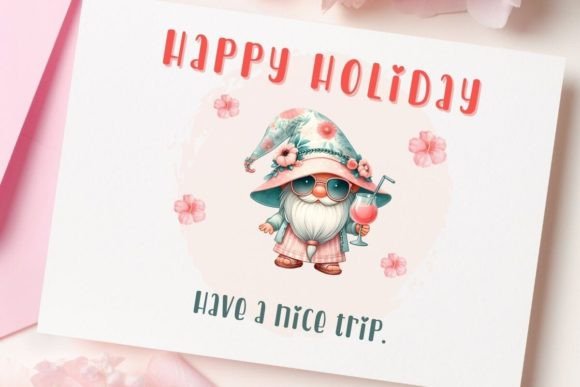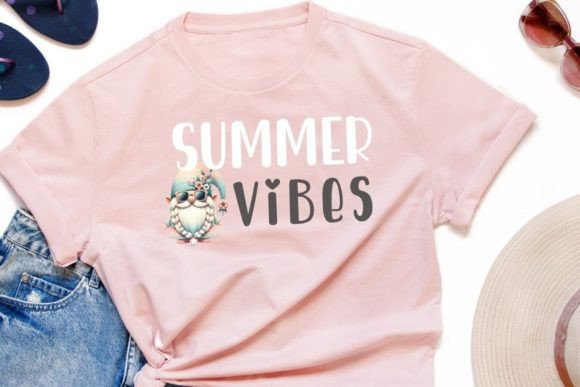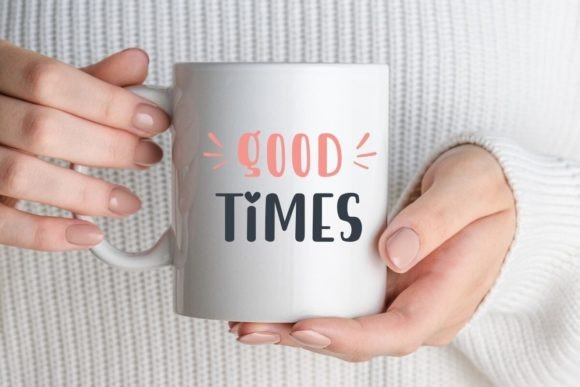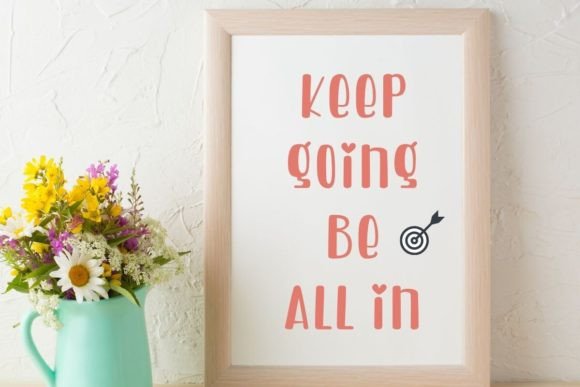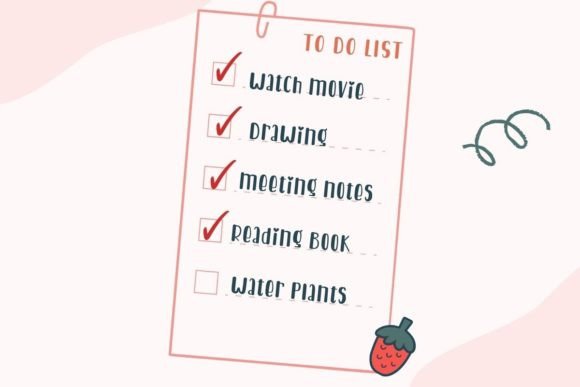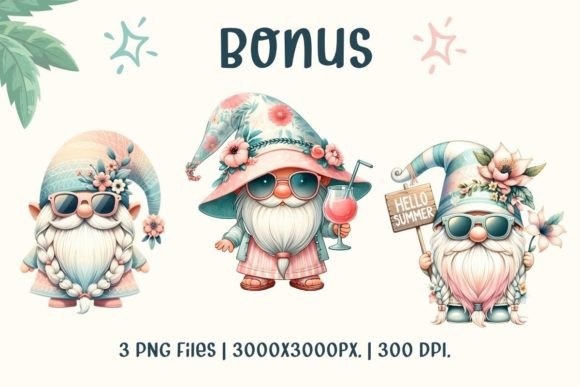
The Delightful Gnome Summer Font: A Designer’s New Best Friend
I’ll never forget the summer I spent working on a whimsical greeting card project for a client. I was determined to create something special, but I was struggling to find the perfect font. That’s when I stumbled upon the Gnome Summer font, and it instantly became my go-to for the project. With its delightful handwritten style and multilingual support, it was exactly what I needed to bring my design to life.
- ✅ Multilingual support for English, Spanish, French, German, Portuguese, and Italian, making it perfect for global design projects
- ✅ A beautiful, handwritten style that’s perfect for creating a personal touch in designs
- ✅ Versatile and suitable for a wide range of projects, from note-taking and diary writing to creating greeting cards, tote bags, mugs, and more
- ✅ Easy to read and understand, even at smaller font sizes
A Few Quirks to Keep in Mind 🤔
- ⚠️ Some users may find the font a bit too casual for formal projects or designs that require a more professional tone
- ⚠️ The font may not be the best choice for very large or bold designs, as it can lose some of its charm at larger sizes
The Story Behind Gnome Summer
Gnome Summer was designed with the intention of creating a beautiful, handwritten font that could be used for a wide range of projects. The designer wanted to create a font that was both elegant and approachable, with a touch of whimsy and personality. The result is a font that’s perfect for designers, crafters, and creative hobbyists who want to add a personal touch to their designs.
Q: What languages does Gnome Summer support?
A: Gnome Summer supports English, Spanish, French, German, Portuguese, and Italian.